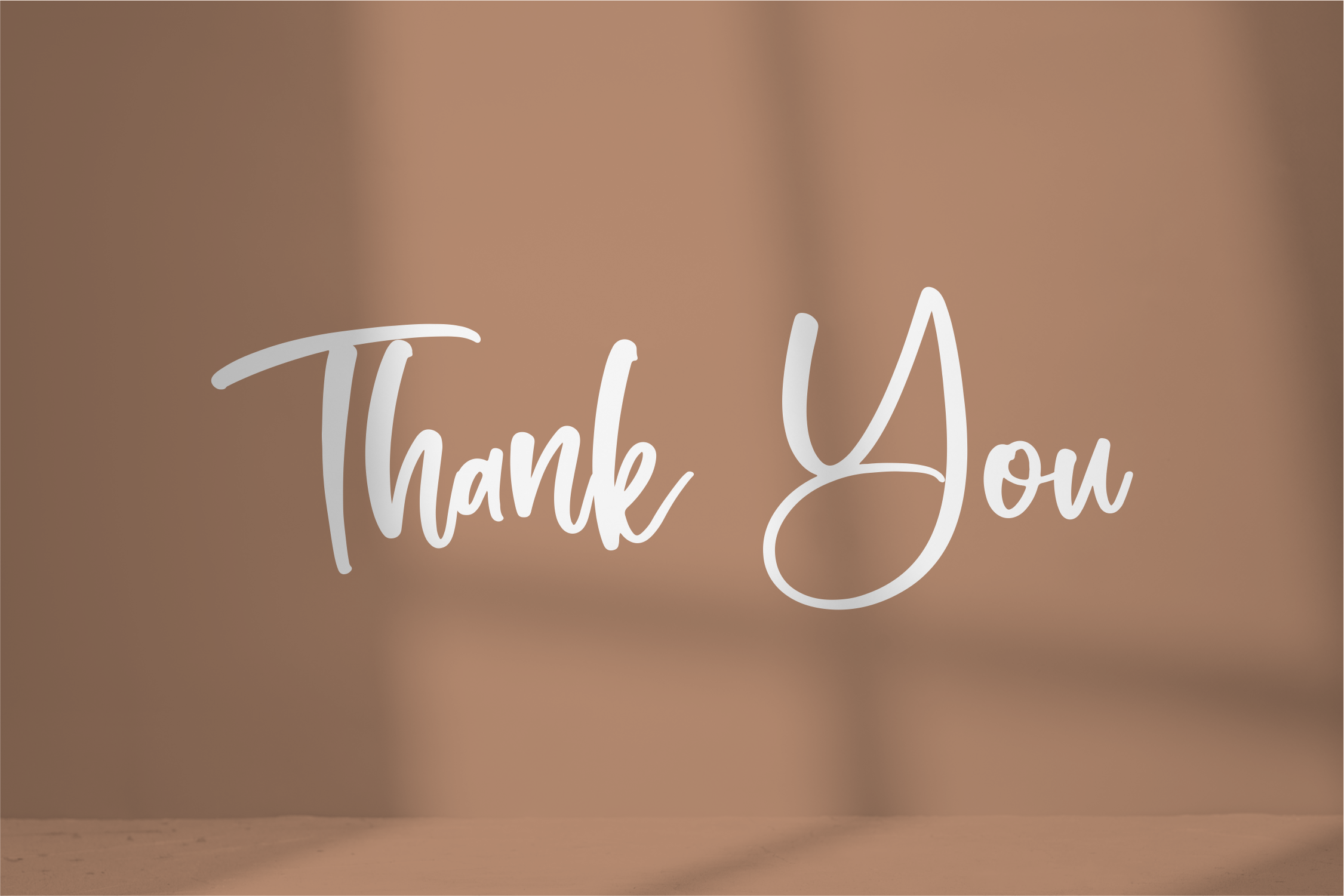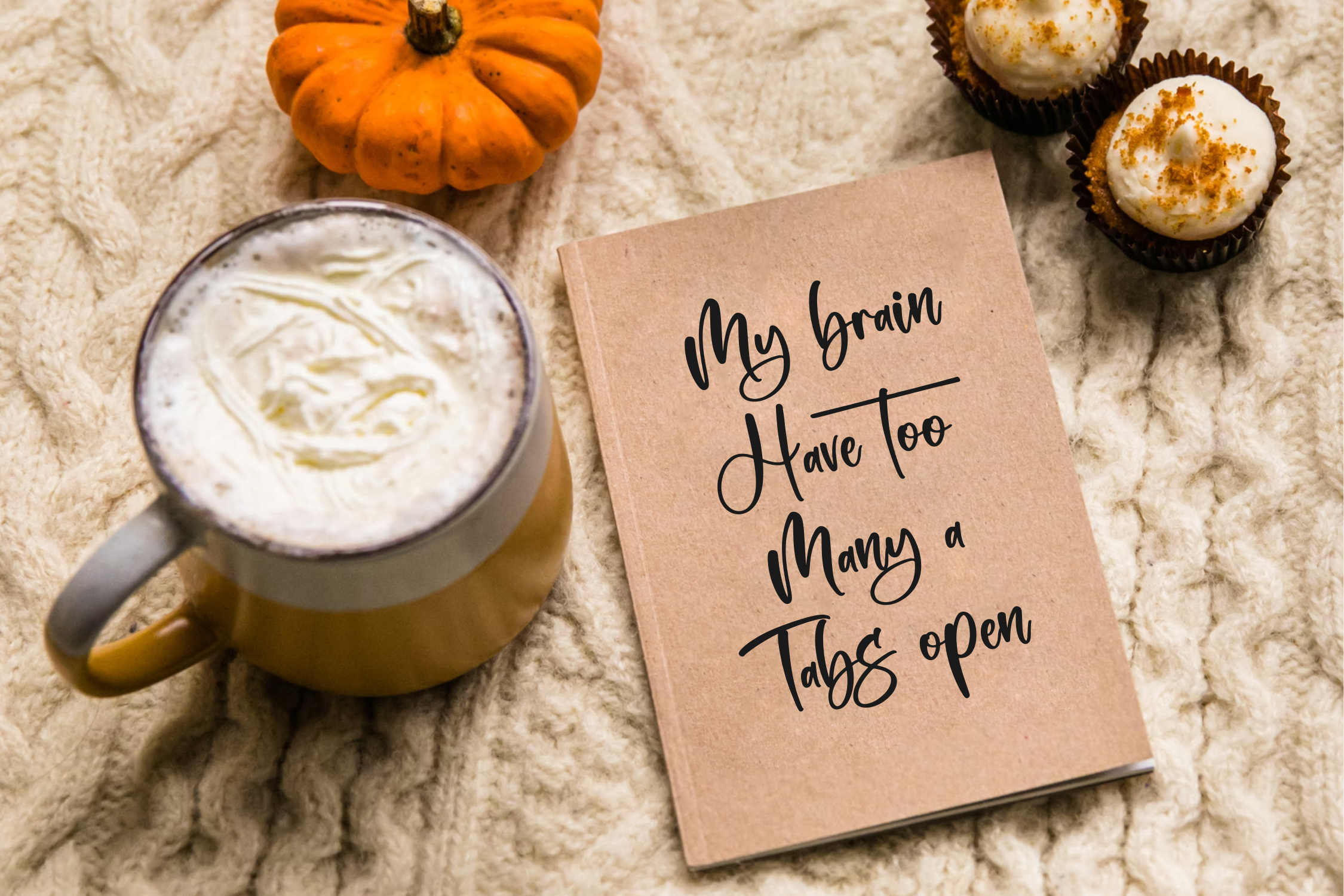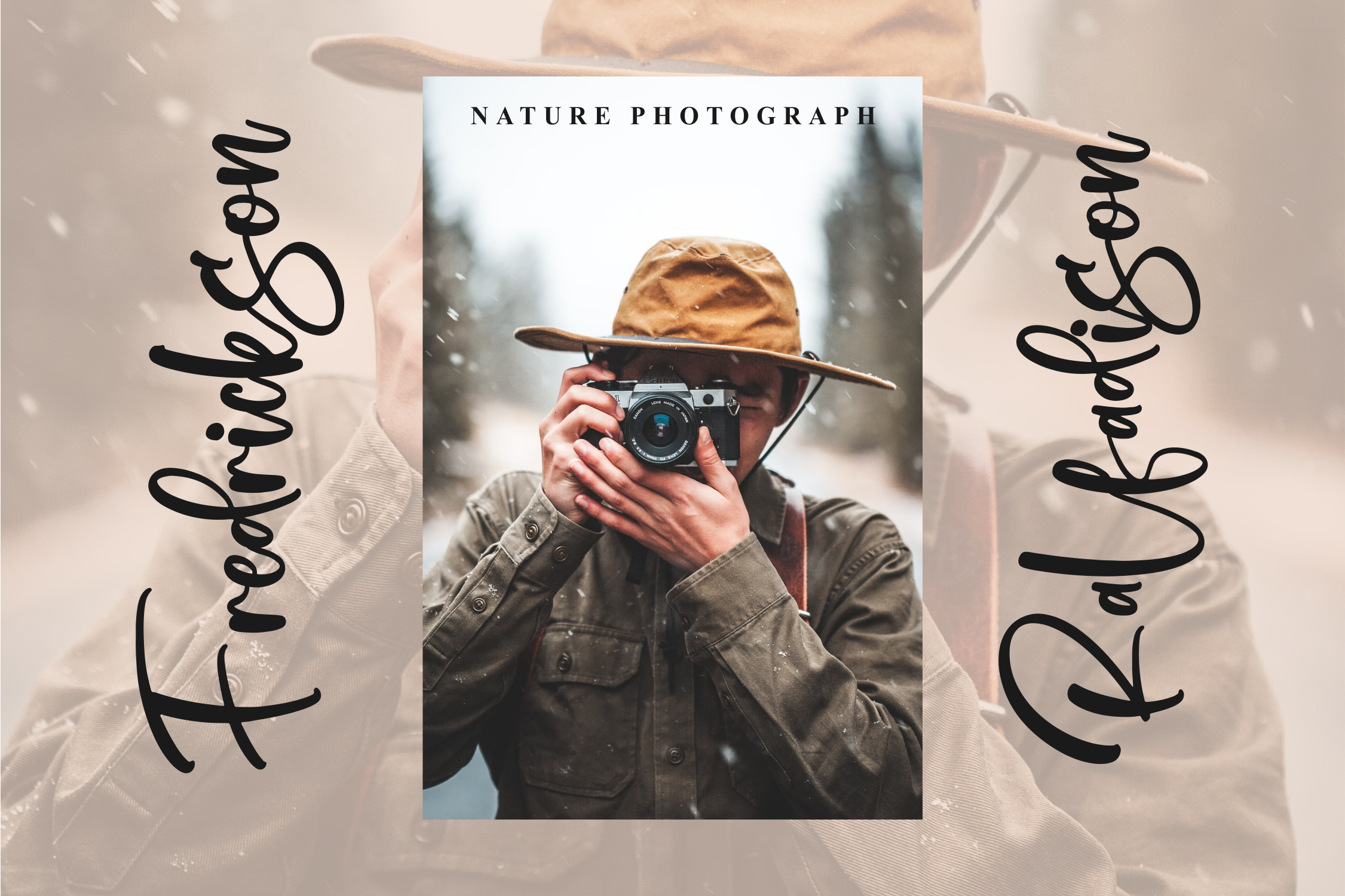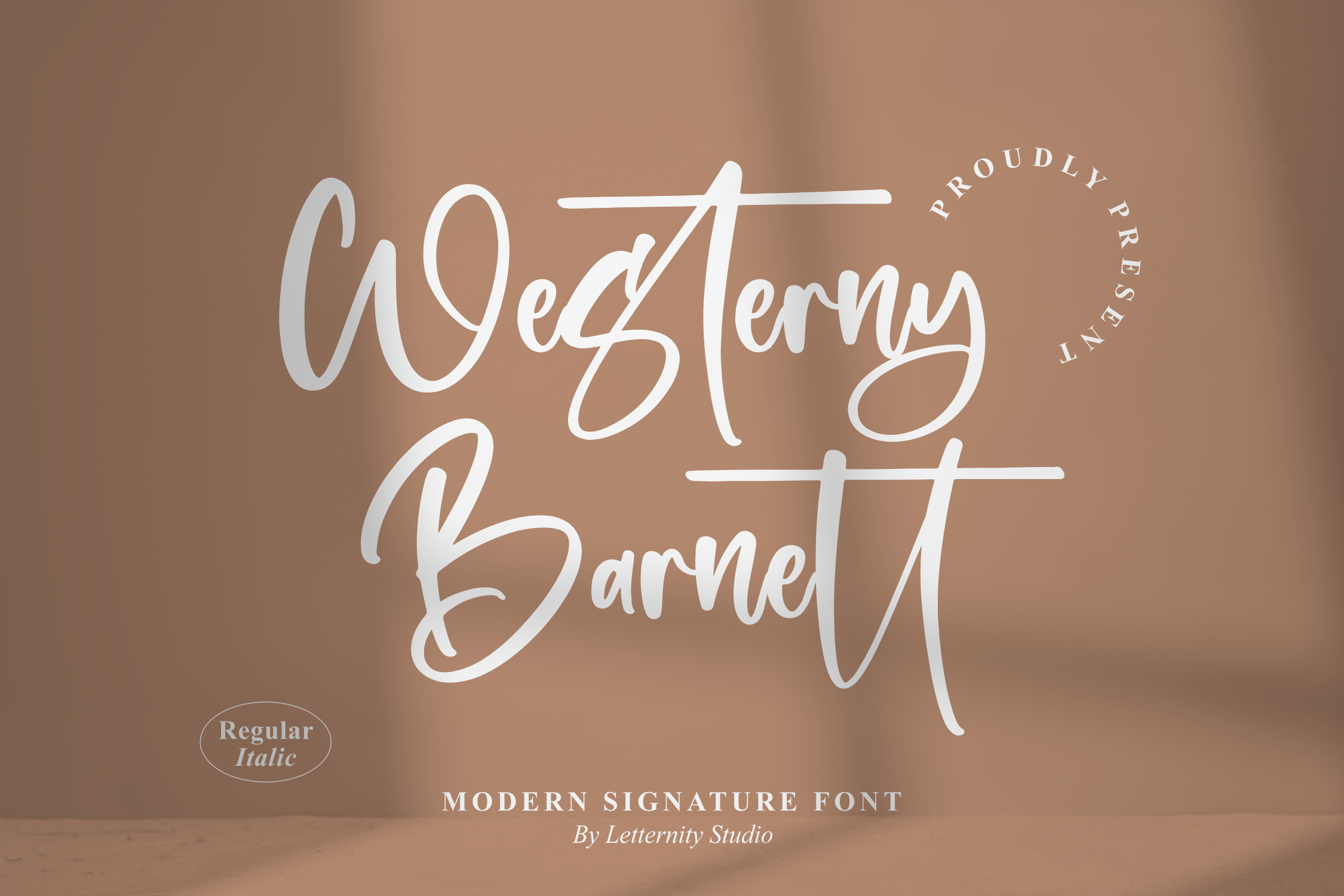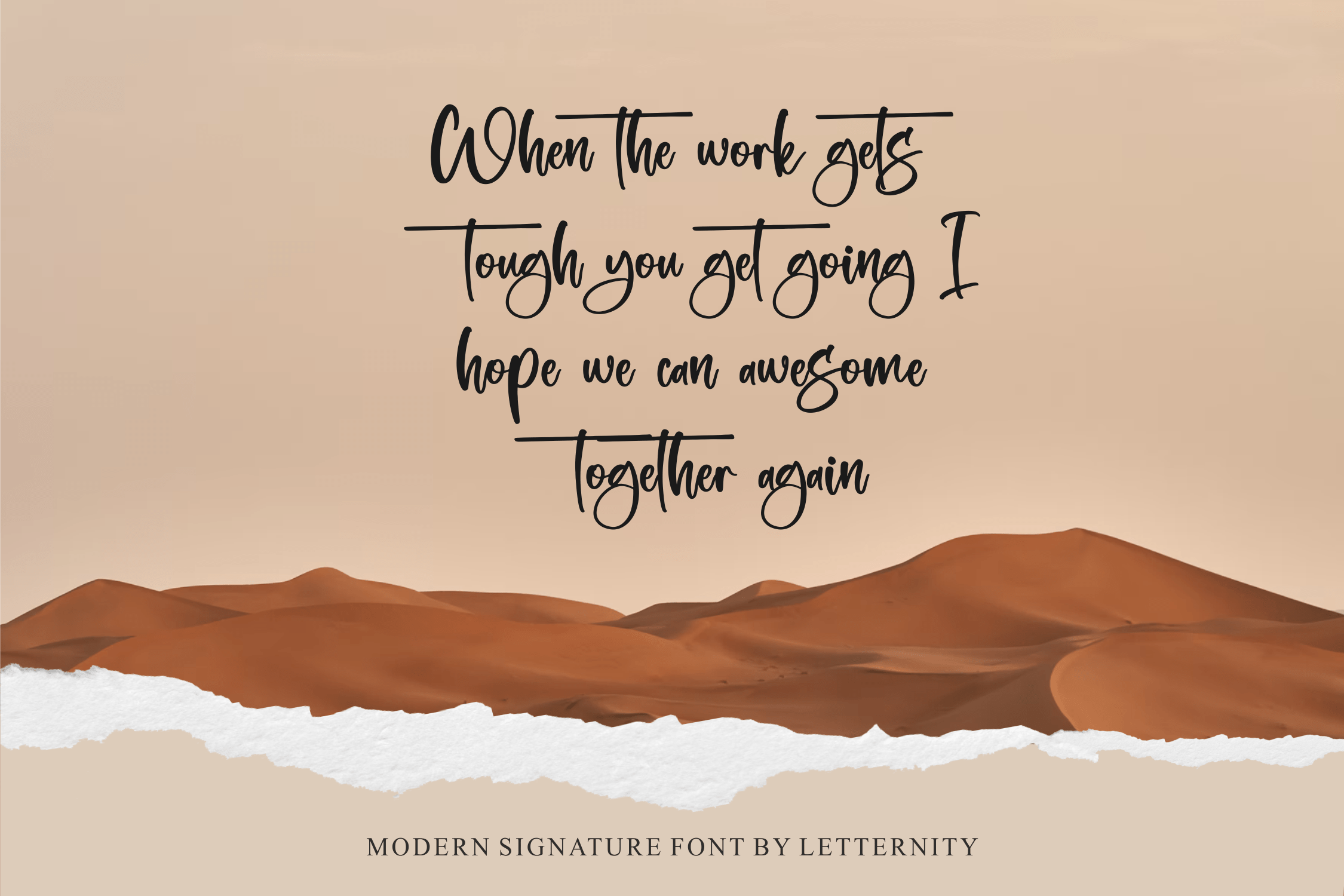
Westerny Barnett Font
Westerny Barnett Script Font
This is a modern signature Font, suitable for any projects such as: logos, branding projects, homeware designs, product packaging, mugs, quotes, posters, shopping bags, t-shirts, book covers, name card, invitation cards, greeting cards, label, photography, watermark, special events, and all your other lovely projects that need a beautiful script taste.